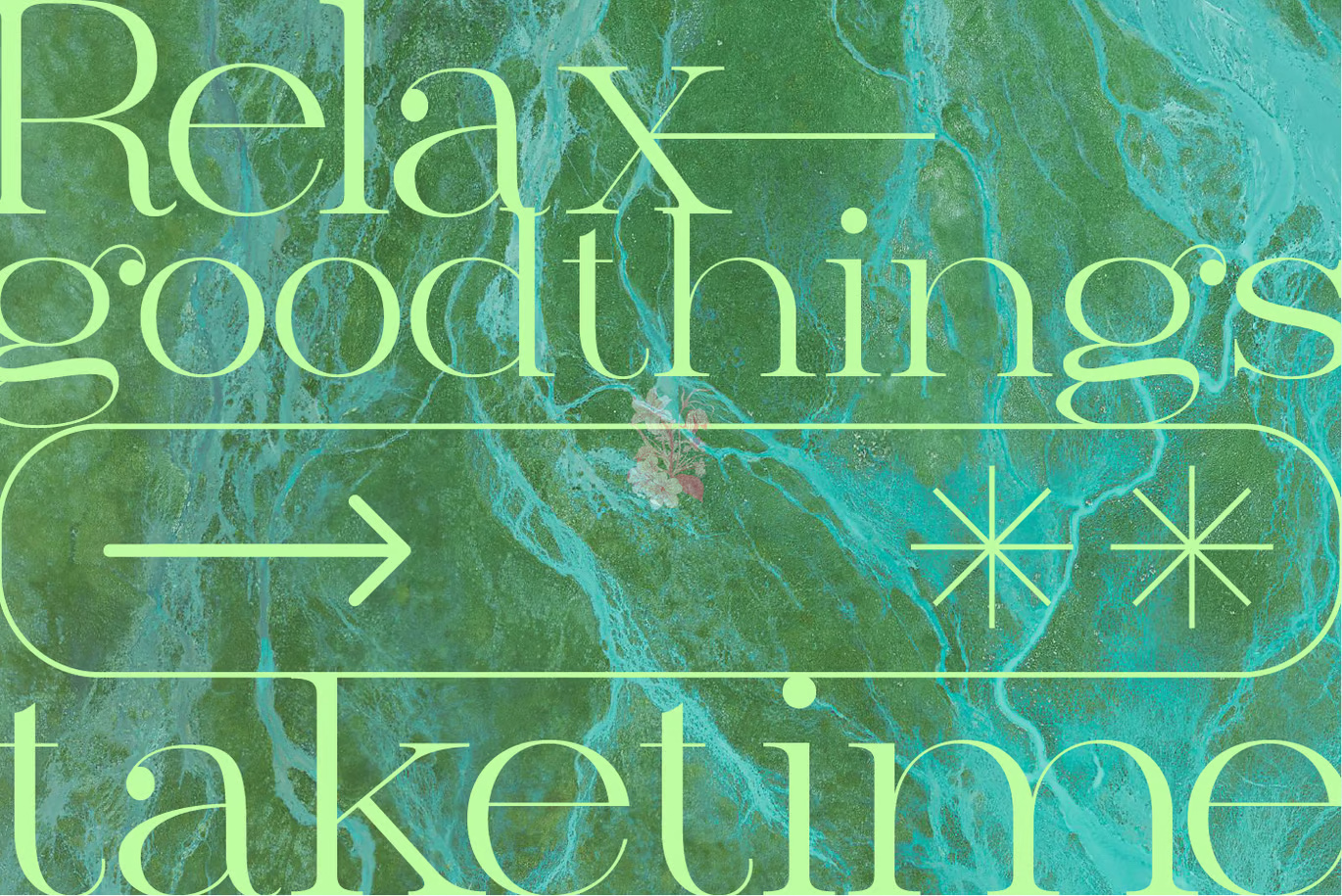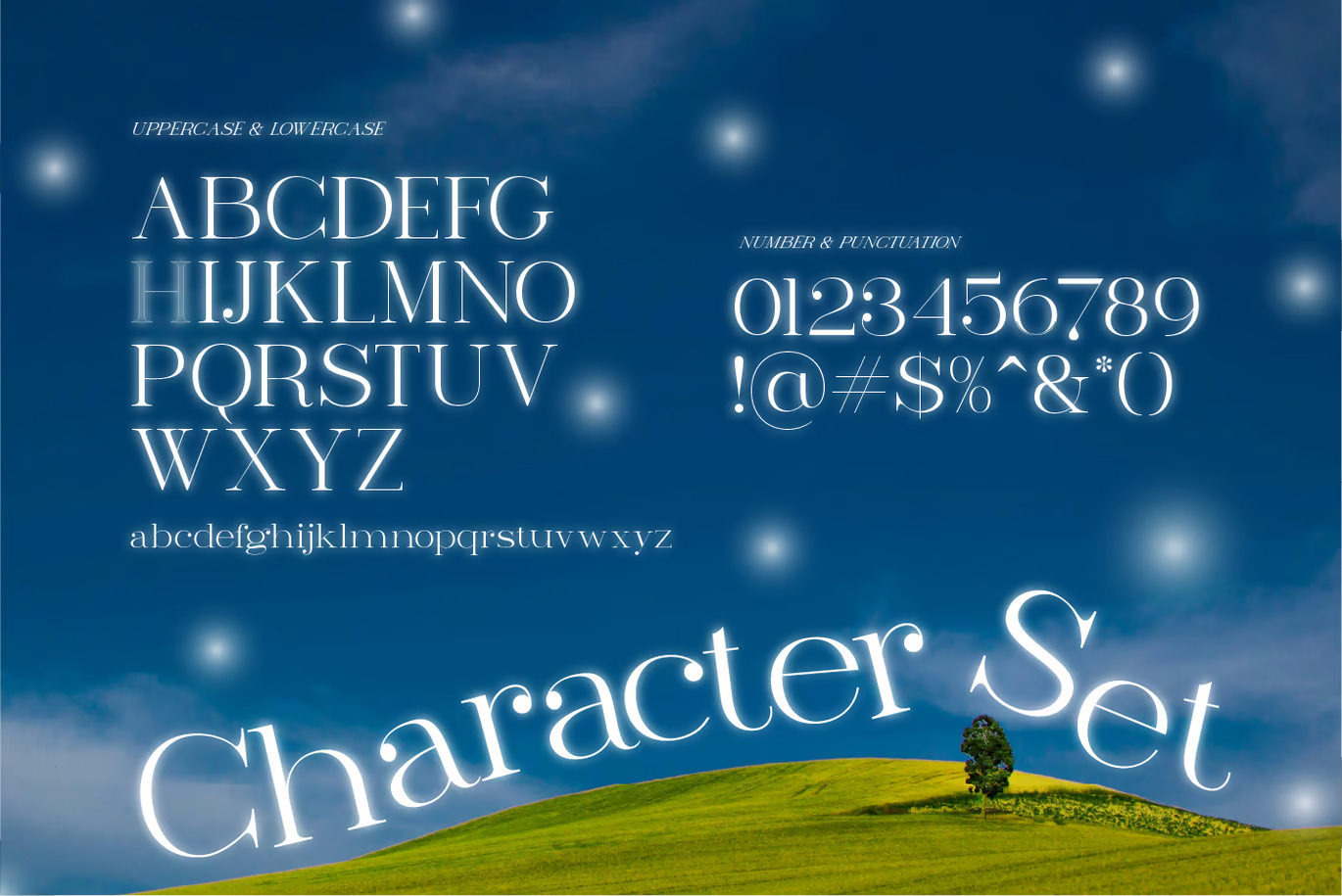
Jina Glow Serif Font
Elevate your designs with Jina Glow Serif Font, a sophisticated and modern typeface designed to bring elegance and style to any project. Featuring smooth curves, refined serifs, and a balanced contrast, this font is perfect for quotes, branding, logotypes, magazine headers, invitations, social media graphics, and more. Its versatile and timeless aesthetic ensures your text stands out with grace and impact.
Jina Glow Elegant Serif Font
Jina Glow Serif Font